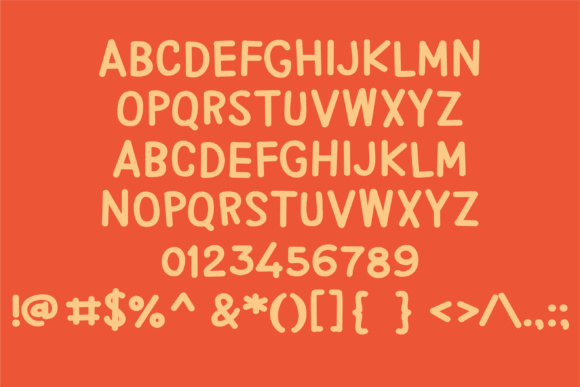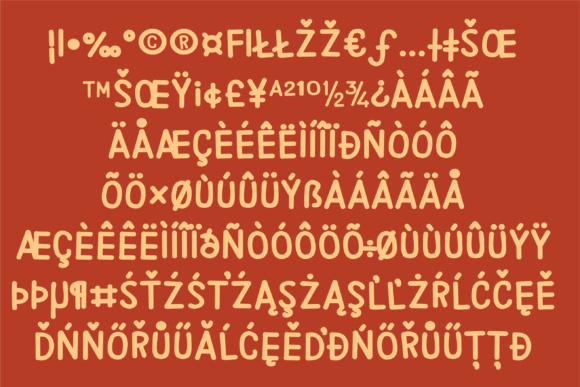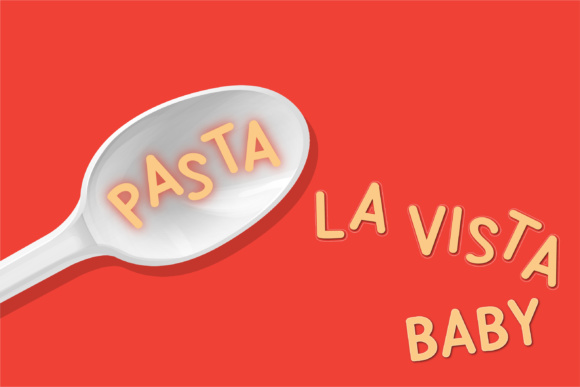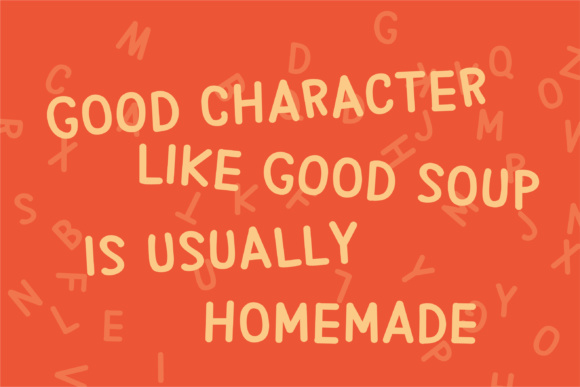
Introduction to PN Alphabet Soup Font Font
Fonts play a crucial role in design, and the PN Alphabet Soup Font font is a typeface that brings both character and versatility to any project. Whether you’re working on a branding project, a website, or a print design, the PN Alphabet Soup Font font offers a unique style that can elevate your work.
This cute hand-crafted sans serif font doesnβt have a true lowercase, rather it has two uppercases that are different from one another.
Key Features of PN Alphabet Soup Font Font
Why Choose PN Alphabet Soup Font Font?
The PN Alphabet Soup Font font is more than just a typeface β it’s a design tool that helps you communicate your message with style and clarity. Its unique character set and versatile design make it suitable for a wide range of applications, from elegant invitations to bold headlines.
With its carefully crafted letterforms and balanced proportions, the PN Alphabet Soup Font font ensures readability and visual appeal across all mediums.
What makes PN Alphabet Soup Font font special?
The PN Alphabet Soup Font font stands out with its unique design, exceptional readability, and versatility across various design applications.